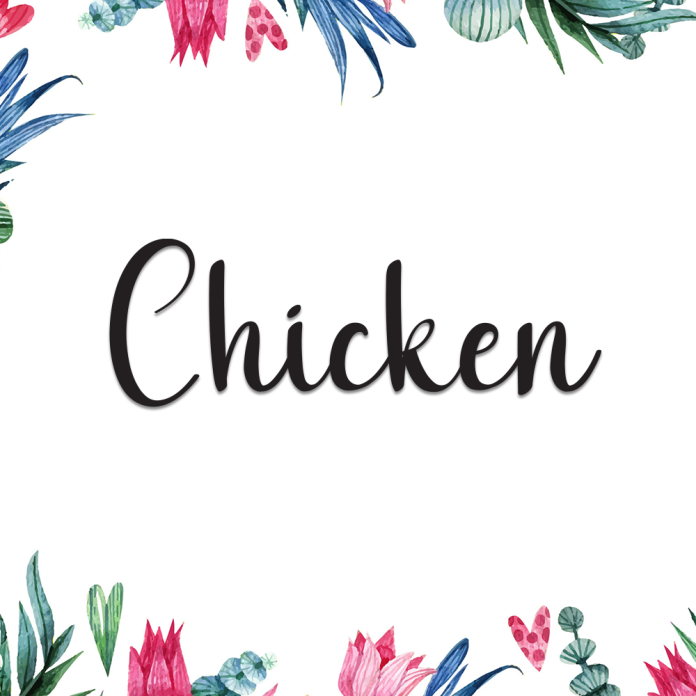
Chicken | Script Font
Chicken is a charming and quirky handwriting font full of personality and playfulness. With its bouncy strokes and slightly irregular curves, it captures the essence of spontaneous doodles and handwritten notes.
Ideal for children’s books, cute packaging, farm-themed designs, and any project that calls for a light-hearted and handmade touch.
Playful handwritten style with quirky letterforms
Suitable for farm themes, food branding, and kid-friendly projects
Natural flow with a fun and friendly vibe
Add a dash of country charm and creativity with Chicken!